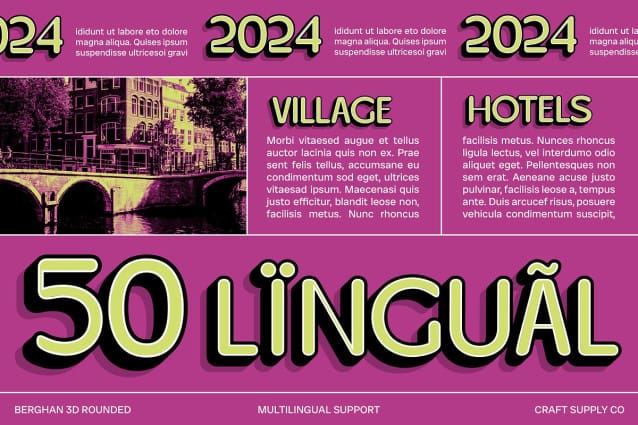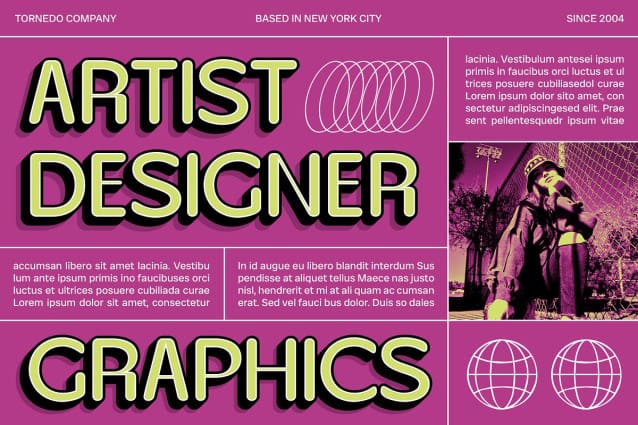
Berghan Rounded 3D Font
Berghan Rounded 3D Font is a modern grotesque sans-serif font that combines sleek simplicity with a striking 3D effect. Its clean, geometric shapes and rounded forms offer a contemporary and approachable look, perfect for tech branding and futuristic designs.
Rounded Forms with Dimensional Depth Experience the blend of modern elegance and engaging visuals with Berghan Rounded 3D. The font’s rounded edges provide a soft, welcoming appearance, while the 3D effect introduces a sense of depth and visual interest. This unique combination makes the font stand out in any design context.
Versatile for Tech and Promotional Materials Berghan Rounded 3D is ideal for a variety of applications, including tech branding, futuristic designs, and promotional materials. Its modern aesthetic and dimensional depth ensure it makes a memorable impact in headers, posters, and digital graphics.
Elevate Your Design Enhance your projects with the sophisticated yet dynamic character of Berghan Rounded 3D. Its blend of sleek, geometric forms and engaging 3D effects makes it a perfect choice for designs that need both contemporary style and visual appeal.